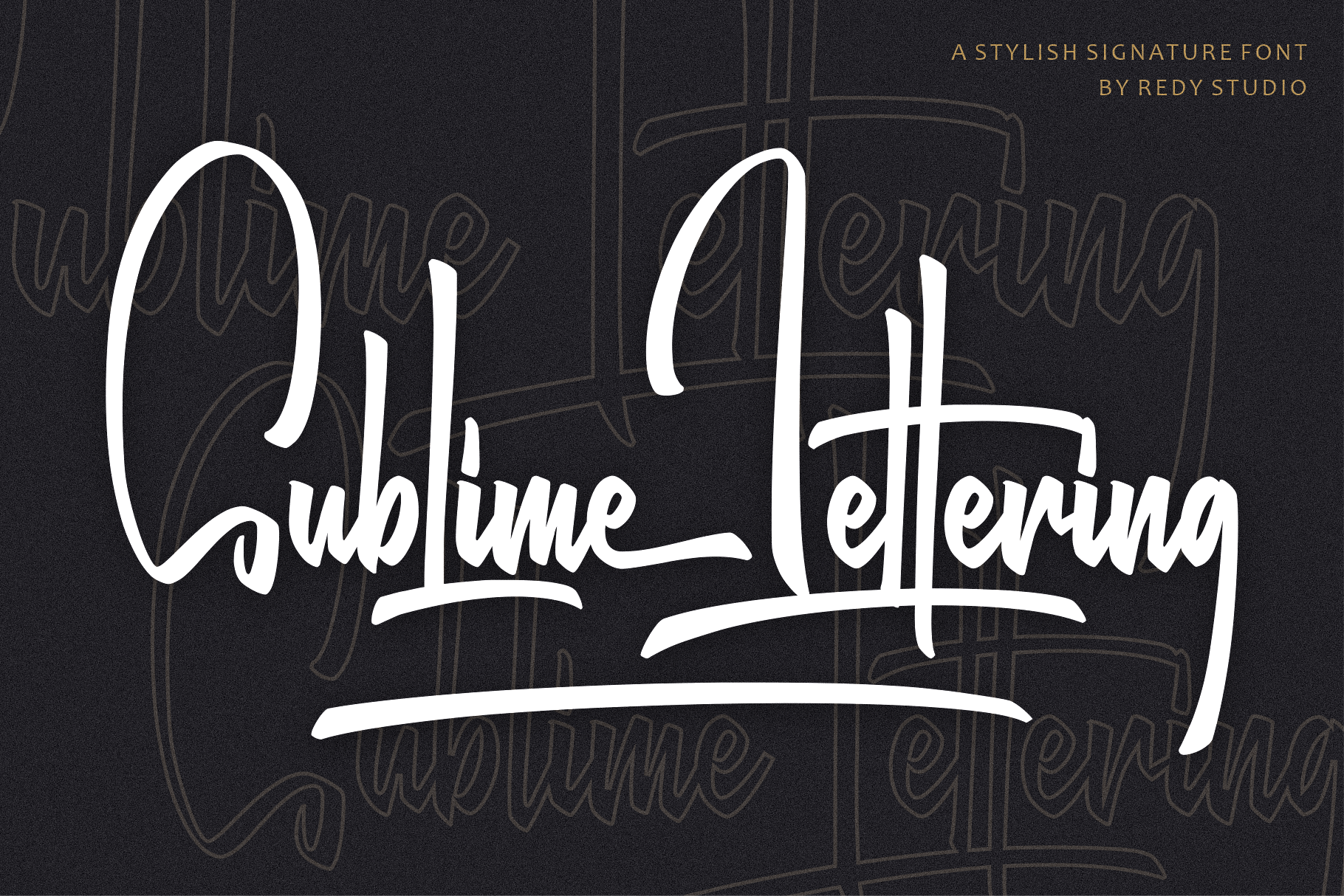
Sublime Lettering Font
Sublime Lettering Font is a handwritten font with a bold look that makes lovely text. It’s especially useful for making signatures or watermarks in photography studios. Everyone is looking for a luxury signature font with a handwritten texture. We’ve spent a lot of time creating this font. It is unique in uppercase letters that dominate the writing and is equipped with a swash in lowercase letters which makes it beautiful if combined into 1 word. We love to combine it into one word because it looks similar to the original handwriting but more professional and luxurious.
Sublime Lettering features:
- A full set of upper & lowercase characters
- A full set of upper & lowercase characters (Alternates)
- Lowercase ending swashes